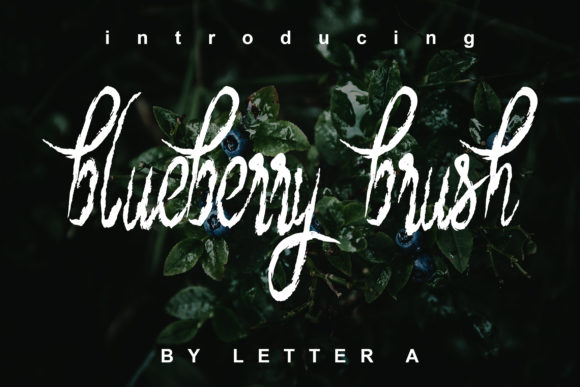
The Blueberry Brush Font: A Designer’s New Best Friend
I’ll never forget the time I was working on a wedding invitation project, and my client asked for a font that was ” elegant, yet playful, and had a personal touch.” I scoured the internet, tried countless fonts, but nothing seemed quite right. That was until I stumbled upon the Blueberry Brush font. It was love at first sight! 💕
The Blueberry Brush font is an authentic calligraphy font with a natural touch. It’s a very versatile font that works great in large and small sizes, making it perfect for various purposes such as logos, wedding invitations, headings, t-shirts, letterheads, signage’s, labels, news, posters, badges, and more.
- ✨ The natural, hand-brushed feel of the font makes it perfect for designs that require a personal touch.
- ✅ The font is incredibly versatile and works well in both large and small sizes.
- 💯 The unique character set and stylistic alternates allow for endless creative possibilities.
- 🎉 The font is easy to read and understand, making it perfect for body text and headings.
While the Blueberry Brush font is amazing, there are a few things to keep in mind: 🤔
- ⚠️ Some characters may require manual kerning to achieve optimal results.
- ⚠️ The font may not work well with very short texts or single words, as it shines with longer texts.
- Experiment with the font’s OpenType features, such as stylistic alternates and glyphs, to add some personality to your text.
- Explore the font’s OpenType features, such as ligatures and stylistic sets, to add some flair to your text.
The Blueberry Brush font was inspired by the beautiful, hand-painted signs found in quaint towns and villages. The designer wanted to capture the essence of these signs and bring them to life in a digital font. With its natural, hand-brushed feel, Blueberry Brush is perfect for designers who want to add a personal touch to their work.
Q: Is Blueberry Brush a script font?
A: While Blueberry Brush has script-like qualities, it’s actually a calligraphy font with a unique character set and stylistic alternates.